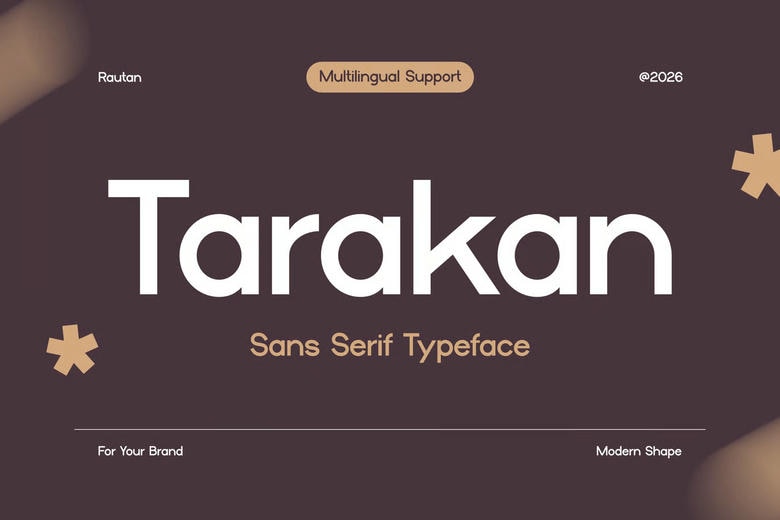
Tarakan Font
Tarakan Font is a modern geometric typeface designed to brand clean workspaces and lifestyle visual, providing easy legibility with balanced proportions, low contrast strokes and sharp terminals. Its geometric and friendly typeface forms a relaxed and confident voice, which is perfect in modern coffee brands, productivity apps, and editorial layouts.
Tarakan has a minimal and elegant feel, which perfectly suits the Instagram feed, cafe aesthetics, and user interfaces. The letterforms are inclined to geometric construction, but with slight humanist nuances, not making them stiff. This renders it very practical in branding systems, social media content, packaging as well as presentation design.
Tarakan directly addresses designers who are developing contemporary brands with the appreciation of clarity and lifestyle aspects. It can be used to convey concentration, relaxation, and efficiency, whether you need to create an identity of a coffee shop, a productivity app user interface, or a minimalistic editorial design. Its visual echo helps it to keep the eye-catching headlines but still be easy to read on long text-ideal branding, posters, social media promotion, and workspace-themed graphics.
Tarakan Sans Serif Font